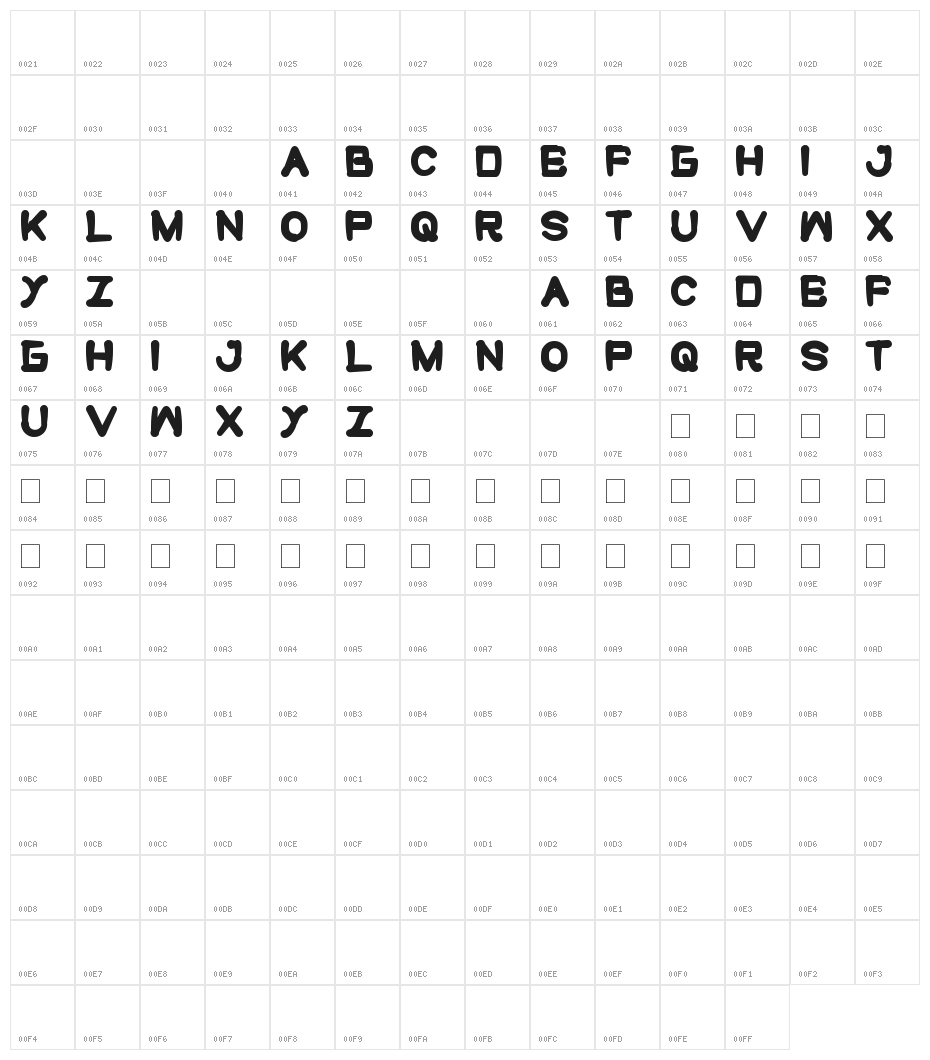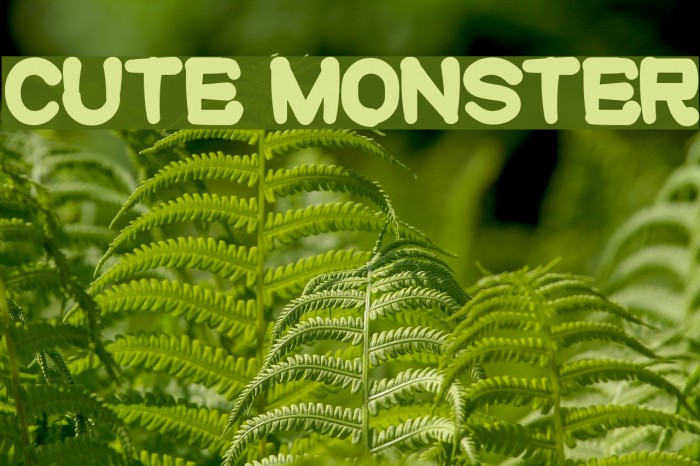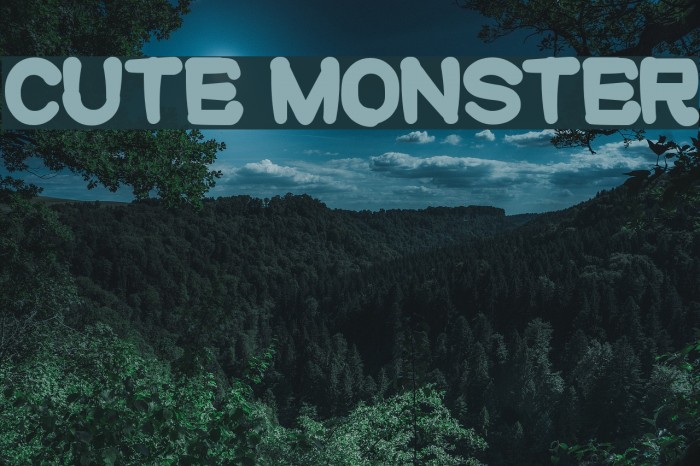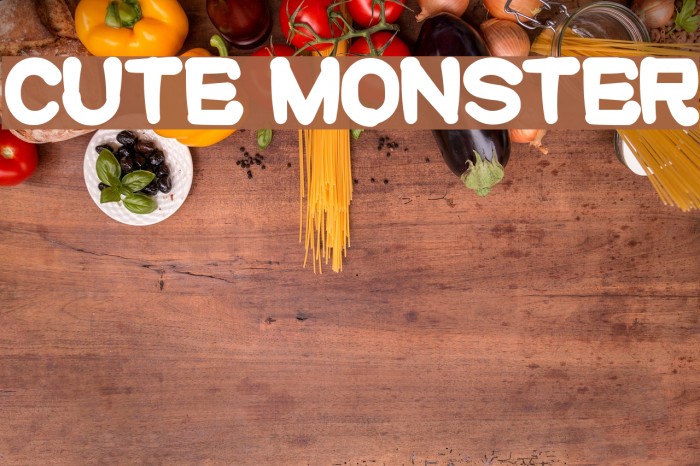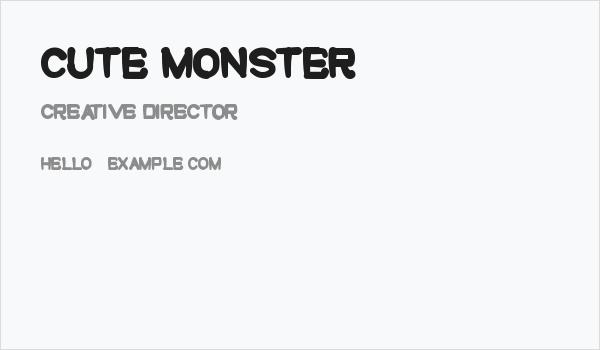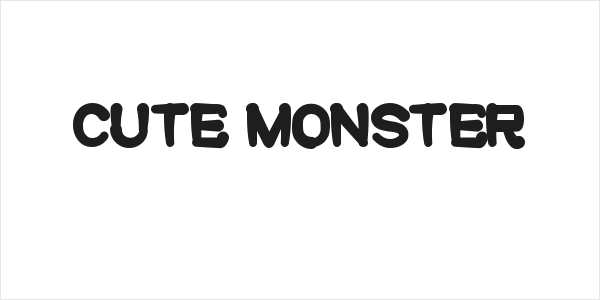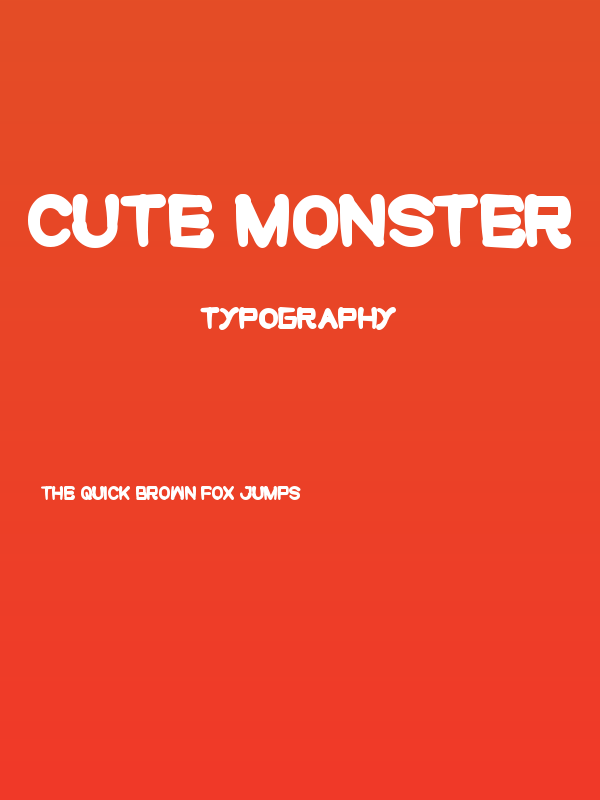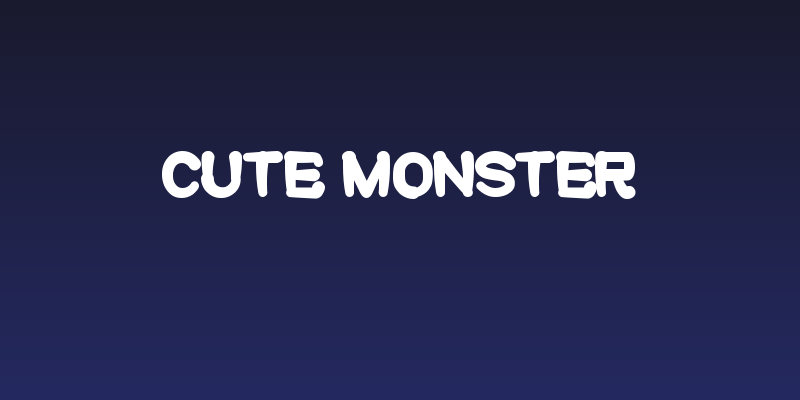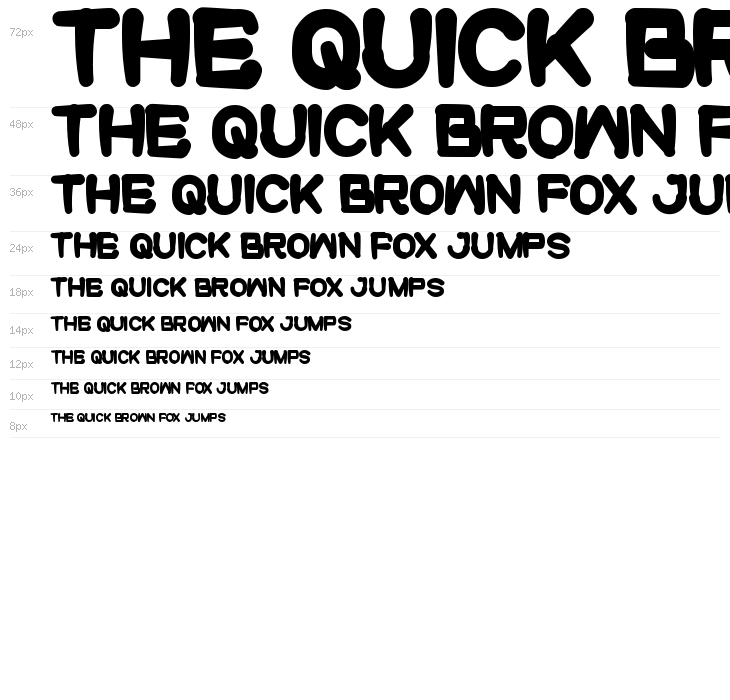
cute monster Font
cute monster Description
This playful and whimsical font features bold, rounded characters with a slightly irregular shape, giving it a fun and friendly appearance. The letters are thick and substantial, with a cartoonish style that adds a sense of humor and lightheartedness. The strokes are consistent in width, contributing to a cohesive look across all characters. The font's design is reminiscent of hand-drawn lettering, with a touch of quirkiness that makes it stand out. Its unique style is perfect for projects that aim to convey a sense of fun and creativity.